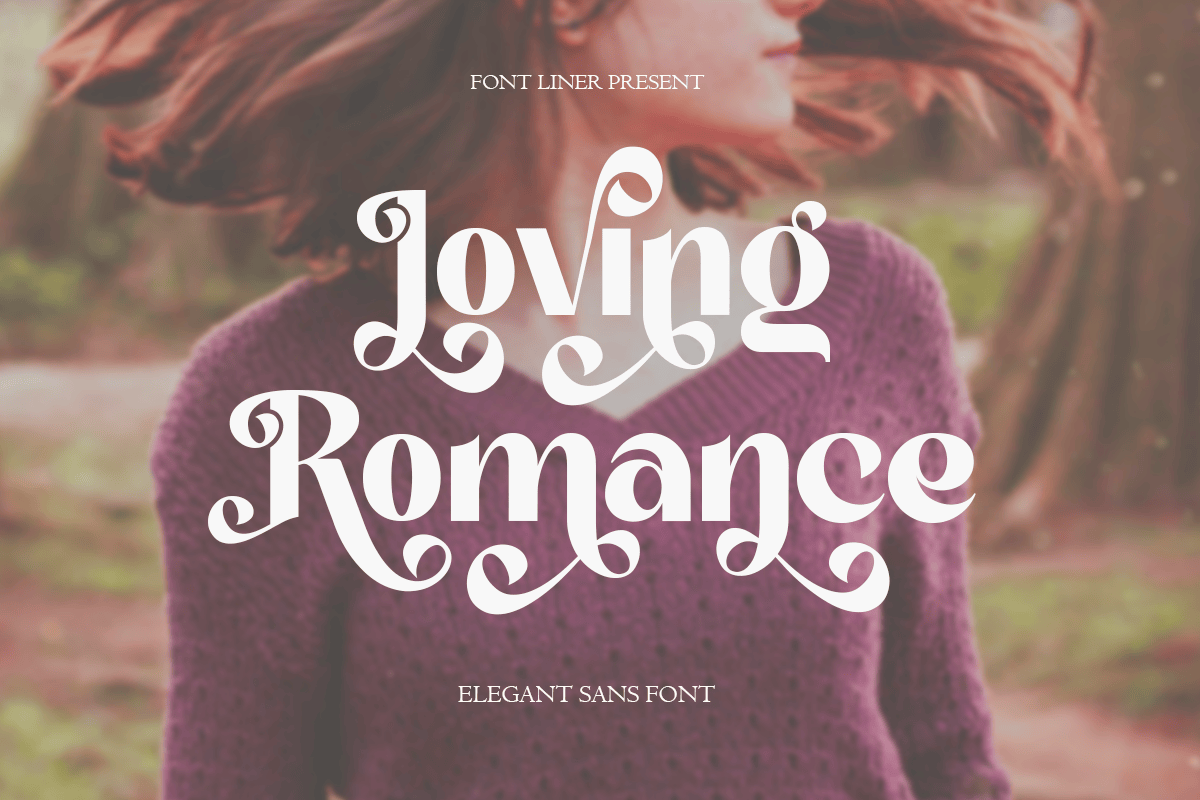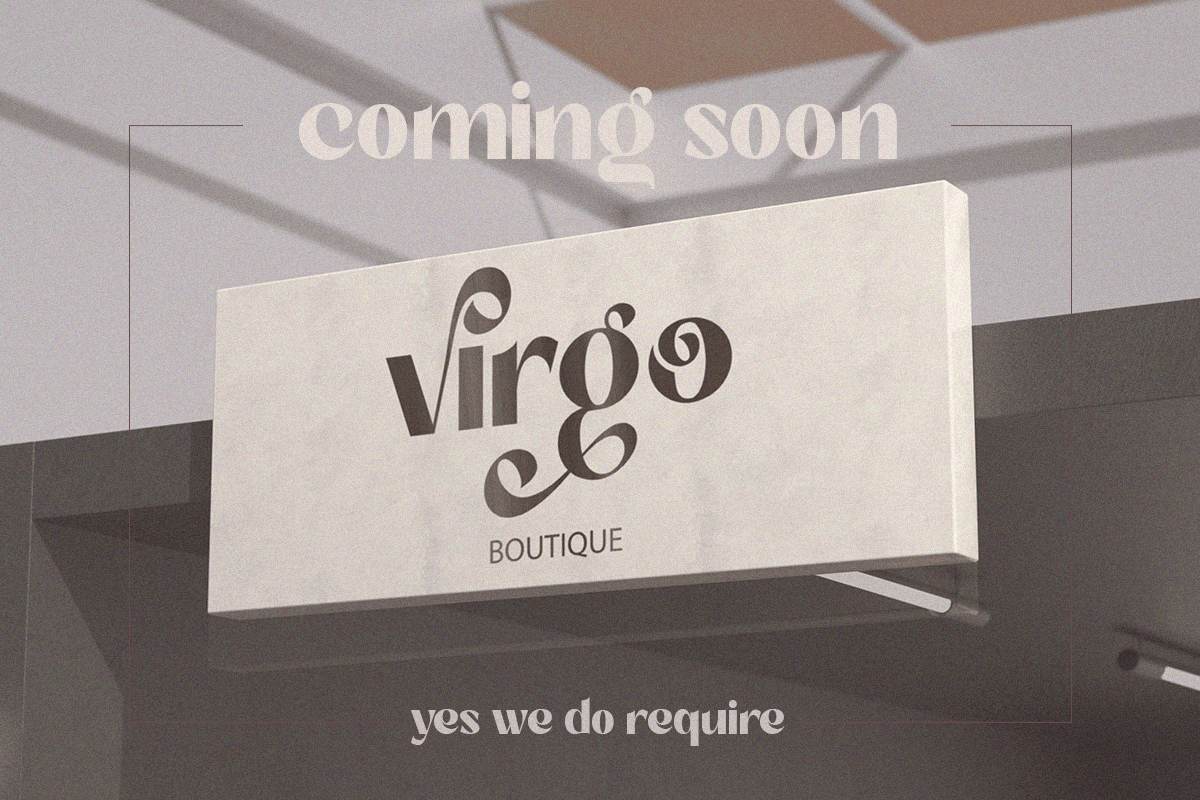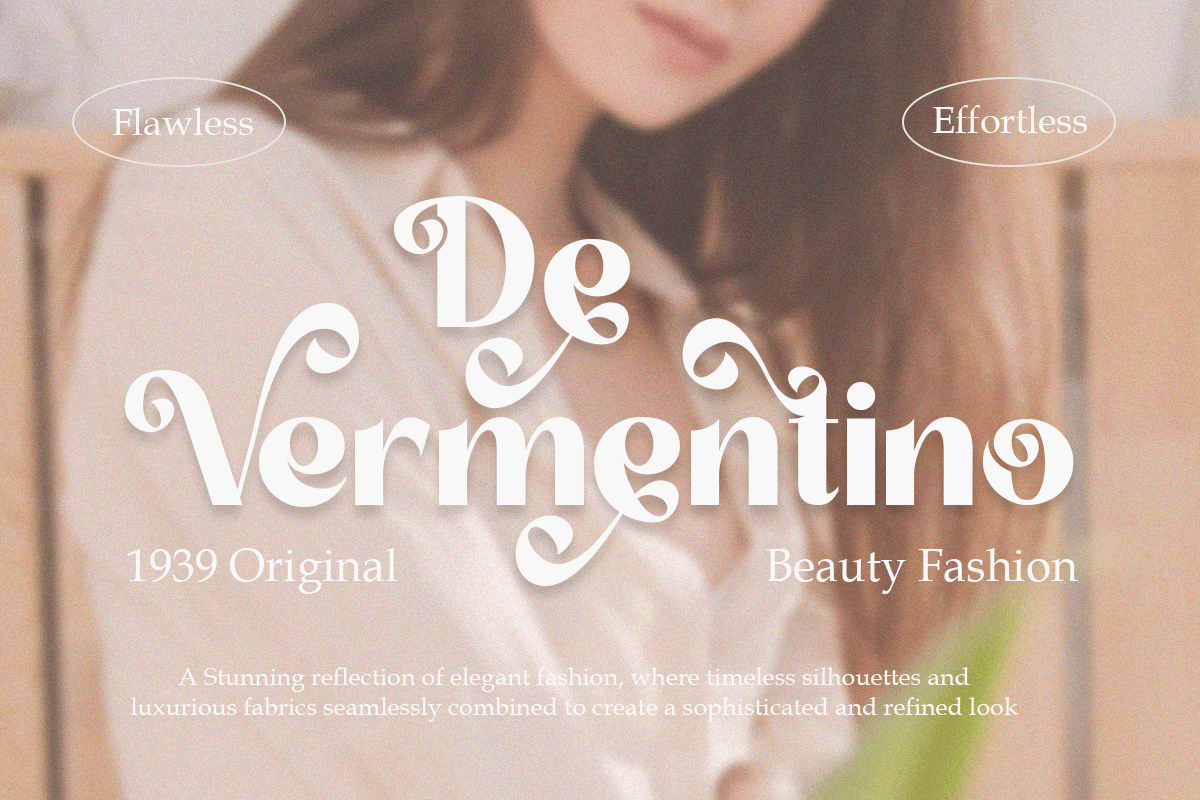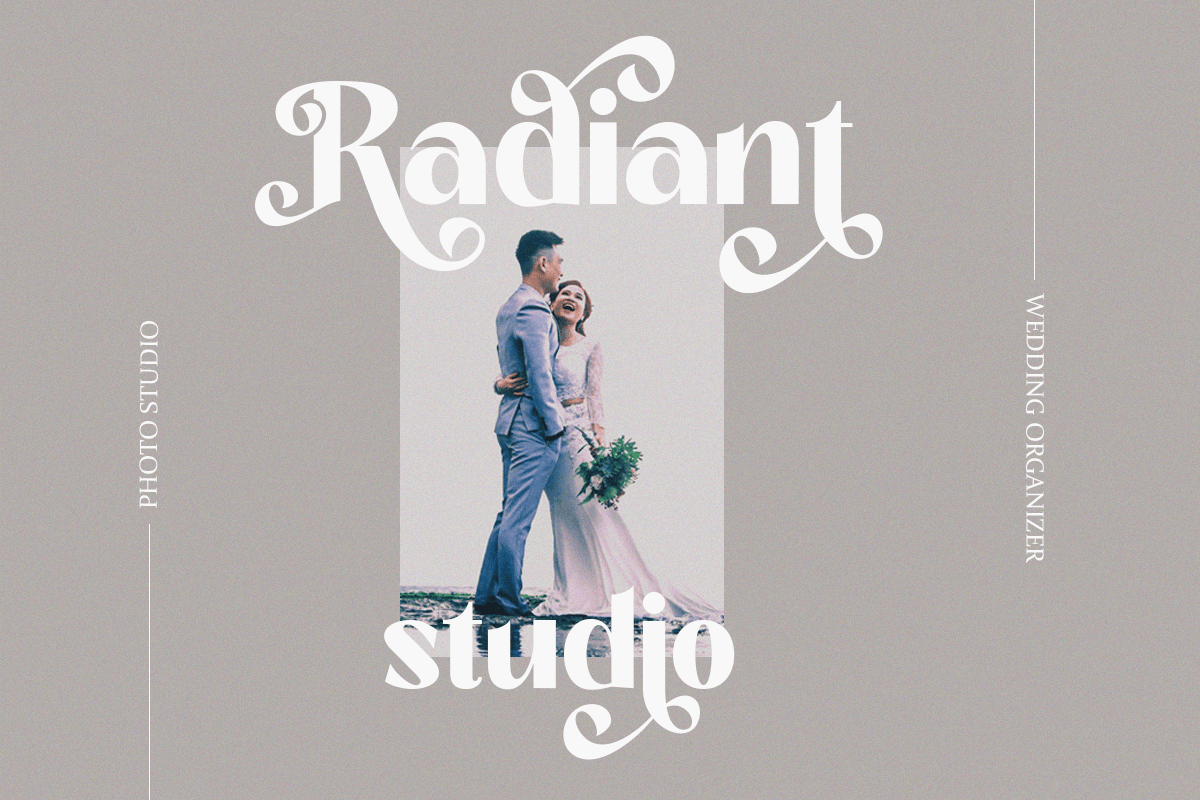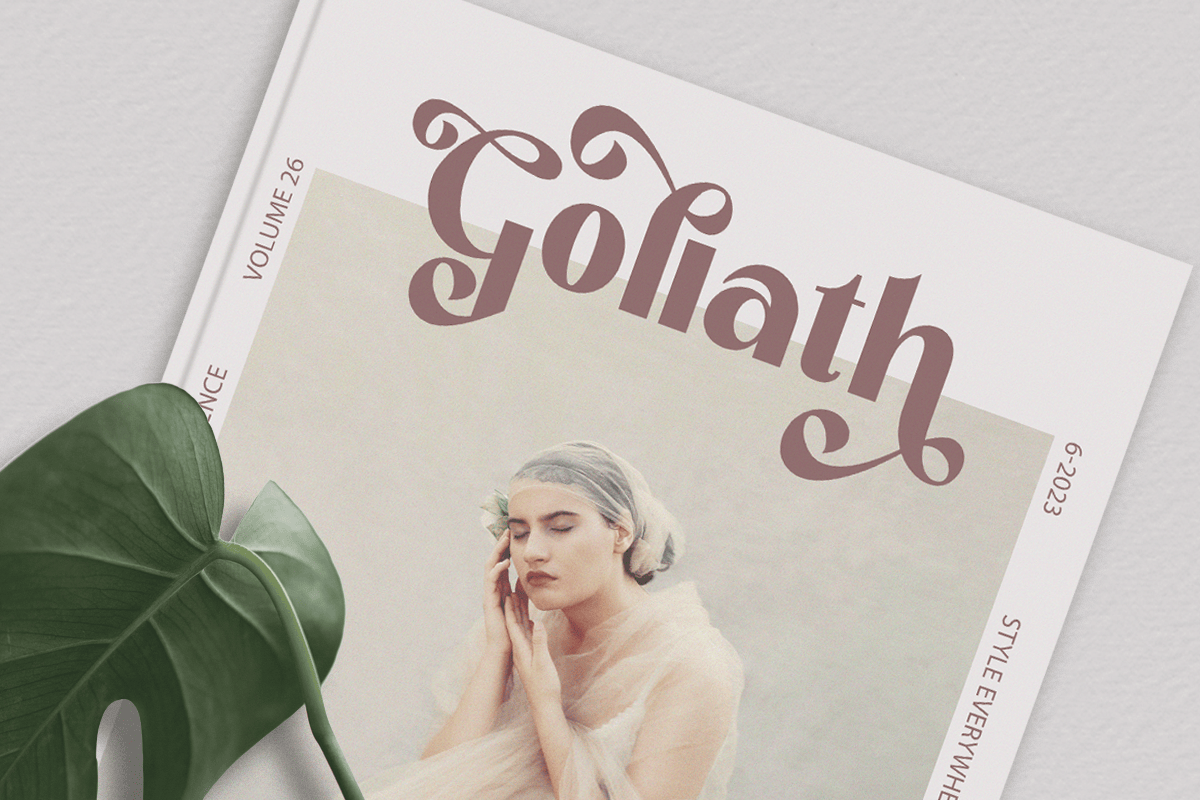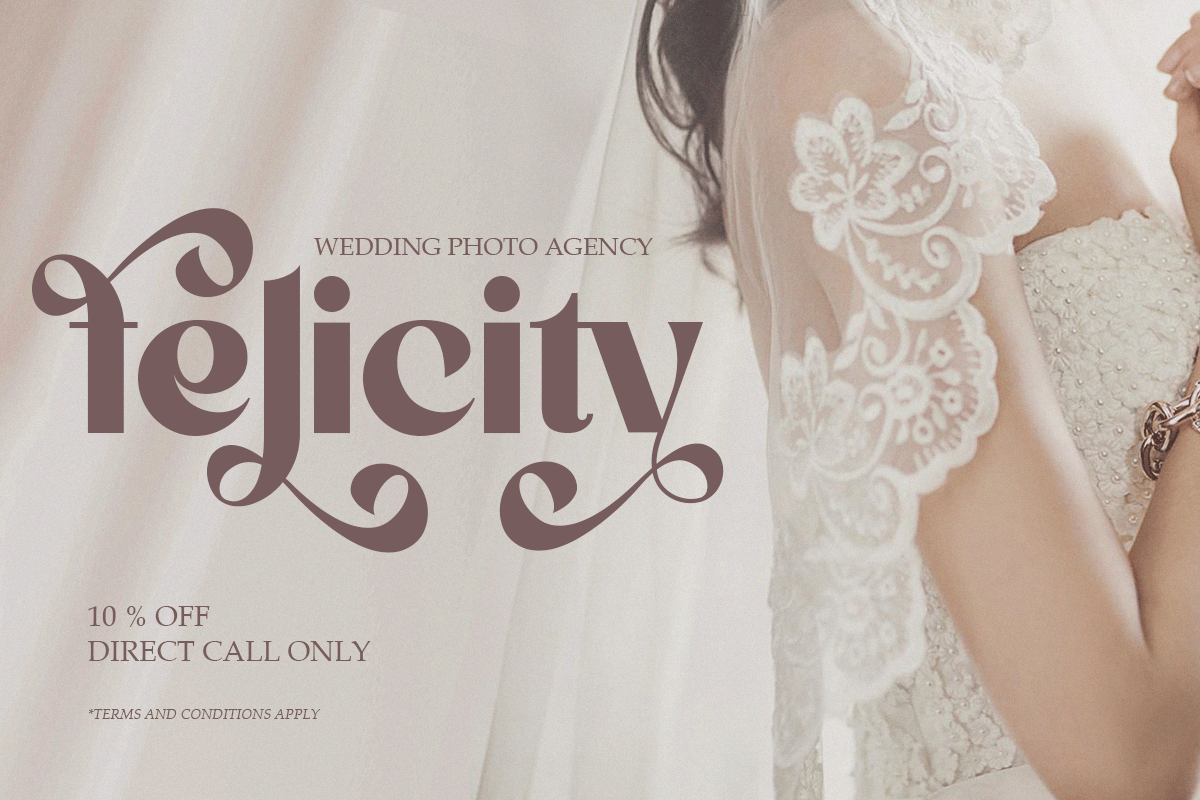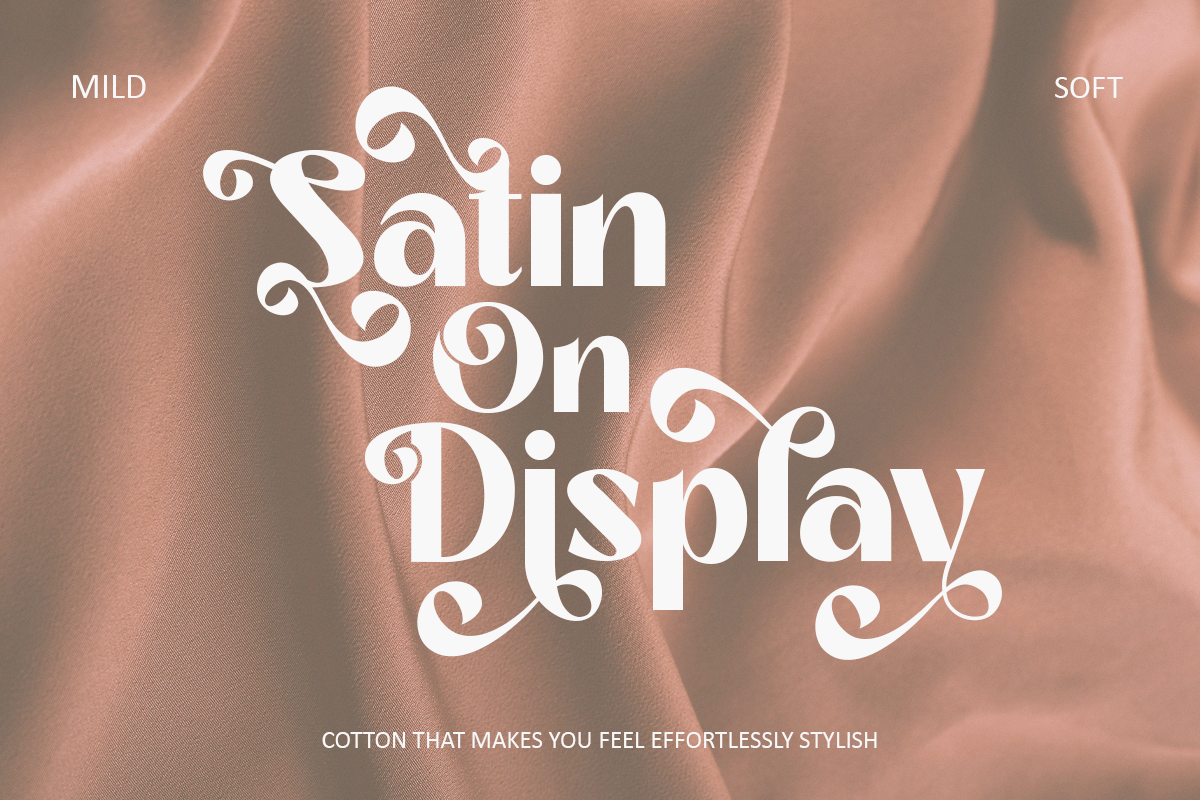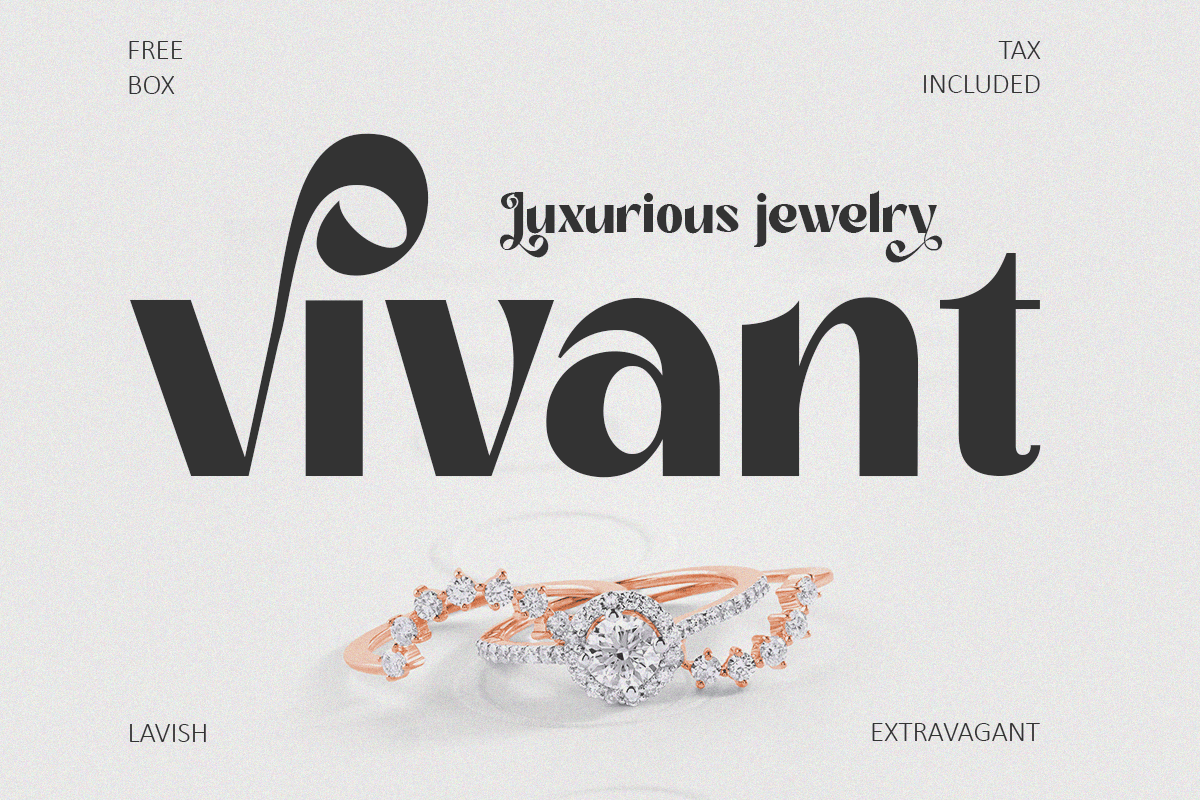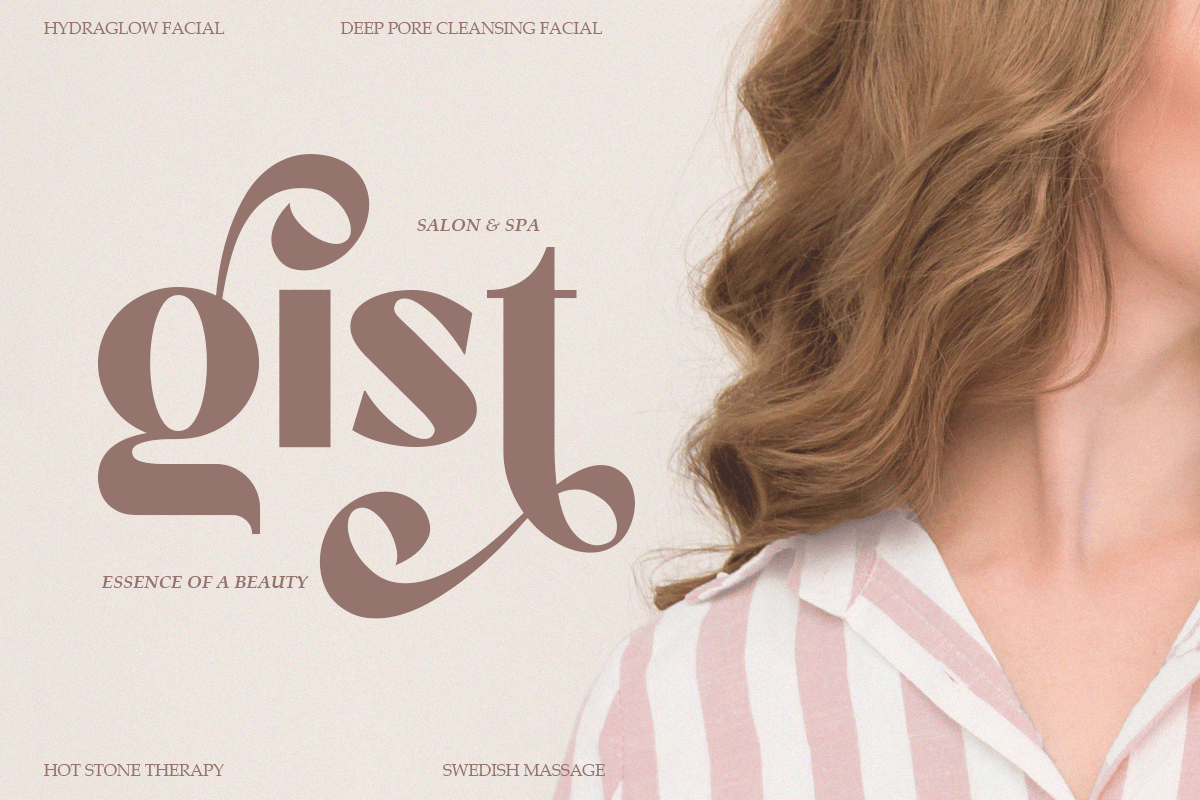
Loving Romance – Elegant Decorative Display Font
Loving Romance is an elegant decorative display font that blends vintage charm with sophisticated ornamental details. Featuring graceful swashes, stylish alternates, artistic ligatures, and refined curves, Loving Romance creates a luxurious typographic presence perfect for premium branding and timeless editorial design. Every letter is crafted to bring elegance, romance, and distinctive personality to your creative work.
Perfect for wedding invitations, beauty brands, fashion labels, jewelry, luxury packaging, cosmetics, boutiques, magazines, logos, social media, product labels, editorials, and upscale marketing materials, Loving Romance includes uppercase, lowercase, multilingual support, numerals, punctuation, stylistic alternates, and beautiful ligatures. Its decorative features make it effortless to build refined typography with an exclusive handcrafted appearance.
Whether you’re designing a bridal identity, luxury cosmetic packaging, elegant fashion campaigns, boutique branding, or premium editorial headlines, Loving Romance offers a harmonious combination of classic beauty and modern versatility. Its ornamental details and sophisticated letterforms ensure every project feels memorable, graceful, and truly luxurious.
– Stylistic alternates
– Uppercase, Lowercase & Ligatures